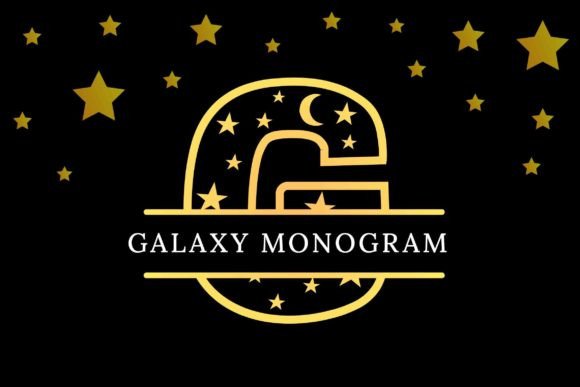
The Magic of Galaxy Monogram Font: Elevate Your Designs with Elegance
Have you ever been in the middle of a design project, and suddenly, you’re stuck on finding the perfect font? I recall a recent experience where I was working on a client’s wedding invitation, and I just couldn’t seem to find a font that captured the elegance and whimsy I was looking for. That’s when I stumbled upon the Galaxy Monogram Font, and it completely transformed my design. In this article, we’ll dive into the world of Galaxy Monogram, exploring its features, uses, and some helpful tips and tricks.
A Personal Review: What I Love and What to Consider
- ✅ Elegant and simple design that’s perfect for creating sophisticated invitations, stationery, and social media posts.
- ✅ The knick-knacks that accompany each letter add a playful touch, making it ideal for fun and creative projects.
- ✅ Works beautifully for both digital and print designs, offering versatility in its application.
- ✅ Easy to read and understand, even at smaller font sizes, which is a huge plus for designers.
- ⚠️ Limited use in very formal or traditional designs, as it leans more towards modern and whimsical.
- ⚠️ May require some exploration to fully utilize its OpenType features and glyphs.
The Story Behind Galaxy Monogram Font
Galaxy Monogram was designed with the intention of capturing the magic of a starry night sky. The creator aimed to develop a font that was both elegant and playful, perfect for a range of design projects. By incorporating unique knick-knacks with each letter, the font adds a whimsical touch that’s hard to resist.
Q: What type of projects is Galaxy Monogram best suited for?
A: Galaxy Monogram is versatile and can be used for invitations, stationery, social media posts, greeting cards, and more.
Q: Is Galaxy Monogram suitable for body text?
A: While Galaxy Monogram is beautiful, it’s more suited for headings and titles. For body text, consider a clearer, more readable font.